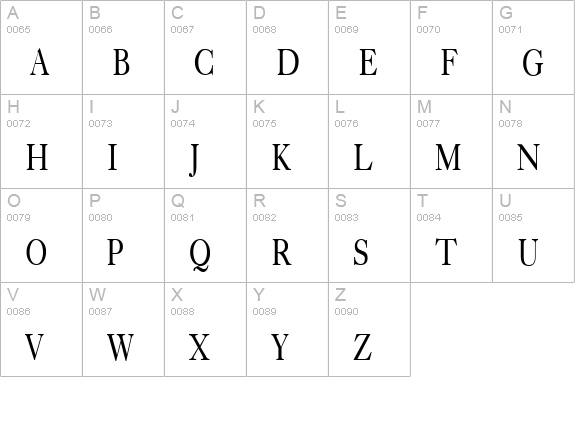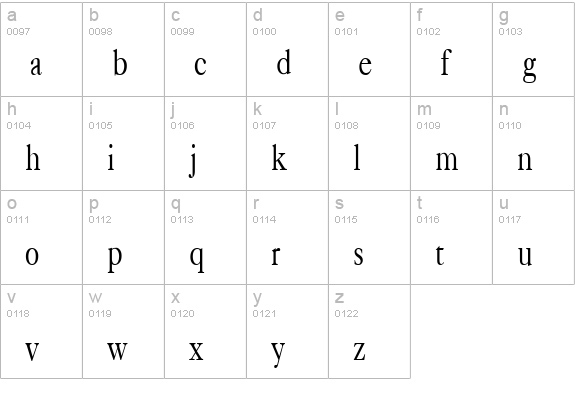
CasqueCondensed Regular Font Details
CasqueCondensed Regular is the standard, neutral variant in the CasqueCondensed typeface family \xE2\x80\x94 well suited to general body text, paragraphs, and standard typographic work.
CasqueCondensed Regular font is a versatile typeface that strikes the perfect balance between modernity and classic elegance. With its clean lines and subtle curves, this font exudes a sense of sophistication and professionalism. Ideal for a wide range of design projects, from branding to editorial design, CasqueCondensed Regular adds a touch of refinement to any visual composition. The best part? CasqueCondensed Regular font is available for free download at FontsMarket.com. This means you can easily access this high-quality font without any cost, making it a valuable addition to your font library. Whether you're a designer looking for a reliable typeface or a business owner seeking a polished look for your branding materials, CasqueCondensed Regular font is sure to meet your needs. Download it today and elevate your designs with this stylish and versatile font.